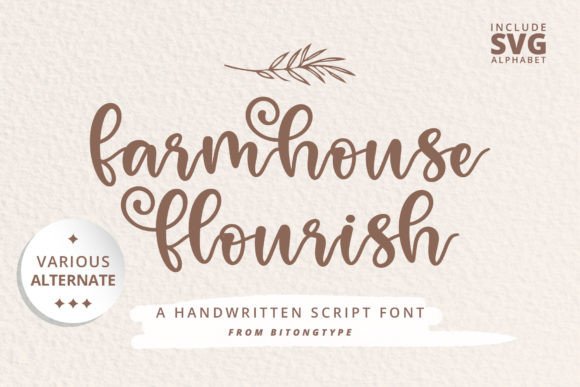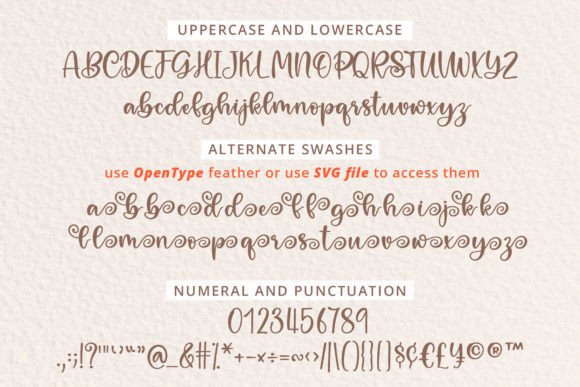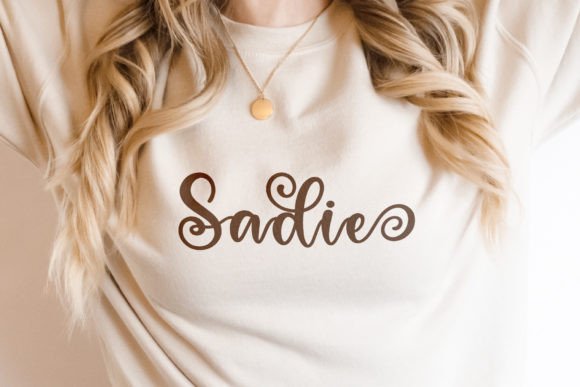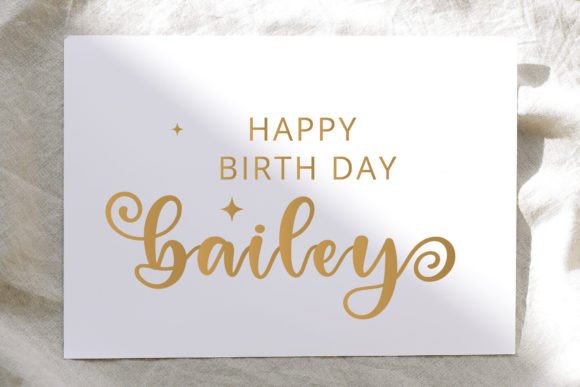
Farmhouse Flourish Font: Cute Handwritten Script for Cricut & DIY Projects
About the Farmhouse Flourish Font
Introducing the Farmhouse Flourish Font, a beautifully crafted typeface designed to elevate your creative projects. Farmhouse Flourish is a gorgeous handwritten font. Fall in love with its incredibly versatile style and use it to create gorgeous wedding invitations, beautiful stationary art, eye-catching social media posts, and much more! This font is PUA encoded, which means you can access all of the glyphs and swashes with ease!
Farmhouse Flourish excels in display applications such as logos, headlines, short-form text on packaging or social media graphics, and wedding stationery. Its charming, slightly whimsical style works well for projects evoking a rustic, handcrafted, or romantic feel. However, its script nature and varying stroke weights make it less suitable for body copy or UI elements where legibility at smaller sizes is crucial.
For a balanced design, pair Farmhouse Flourish with a clean sans-serif like Montserrat for a modern contrast, or a classic serif like Playfair Display for a more traditional, elegant feel. A geometric sans-serif such as Futura would also create a striking juxtaposition, highlighting the organic quality of the script.
The font’s core personality is best described as friendly, charming, and slightly rustic; its informal elegance makes it ideal for brands focused on artisanal goods, weddings, or events with a warm, welcoming atmosphere.